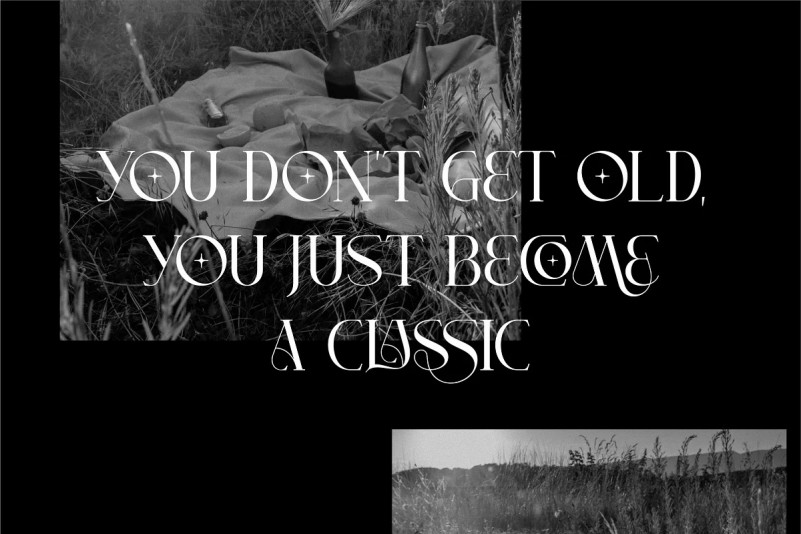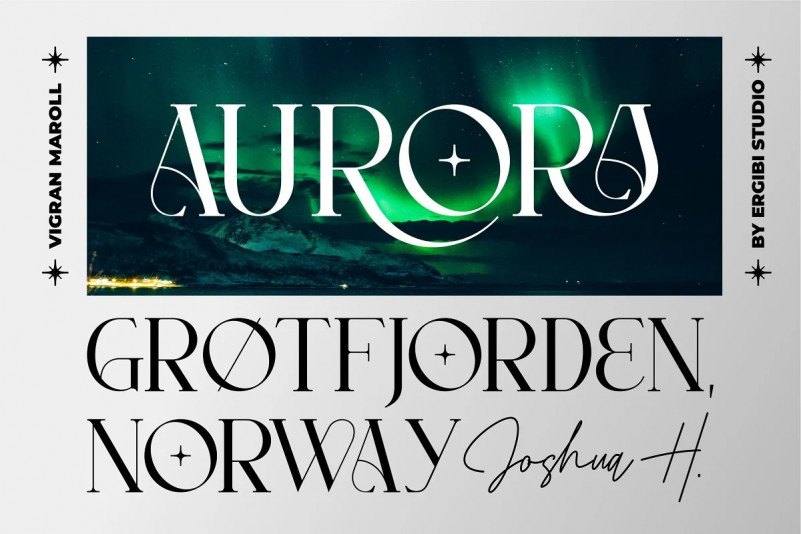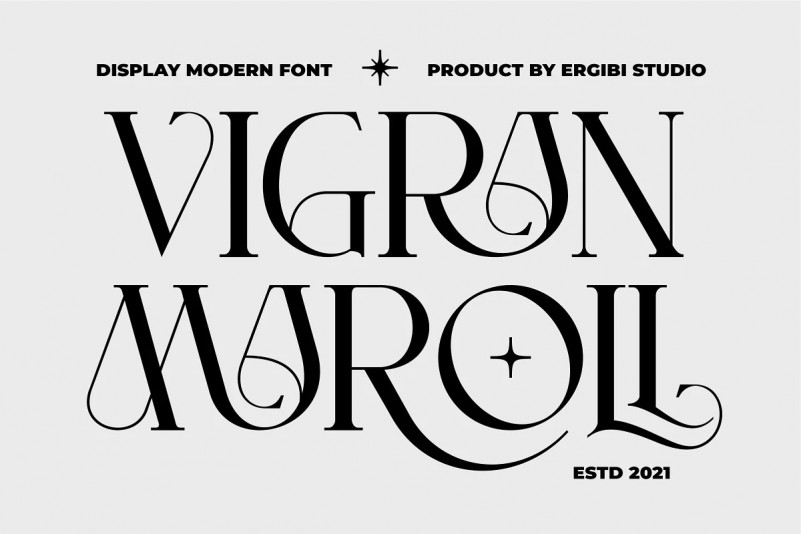
Vigran Maroll Font
Introducing Vigran Maroll Serif Font, Inspired by today’s modern logo with a unique style but with an elegant shape. So we tried to do and create fonts as per the current market needs. VIGRAN MAROLL is perfect for BRANDING and LOGO DESIGN. You will get a classy, elegant, and of course aesthetic logo with this font. Besides that, this font has a unique ligature which is very suitable for various types of work such as posters, packaging, T-shirts, coffee shops, restaurants, magazine’s headers, signs or gift/post cards, cafe’s and weddings or any type of advertising purpose.